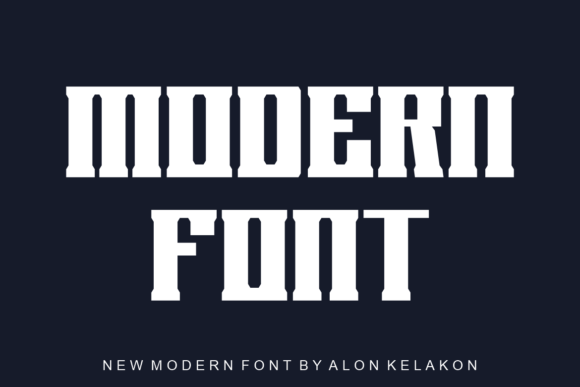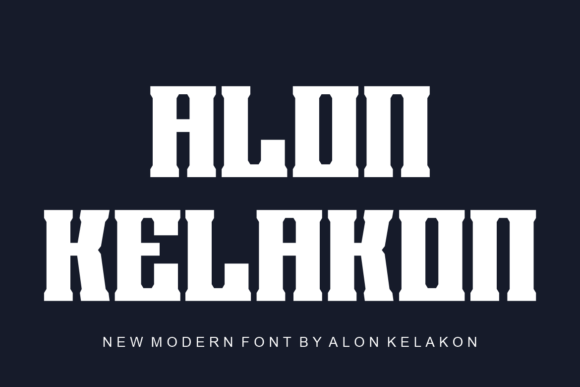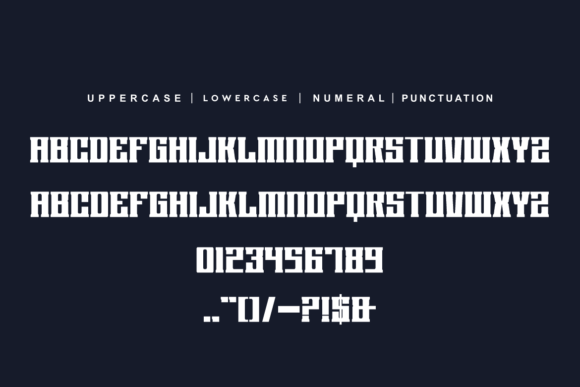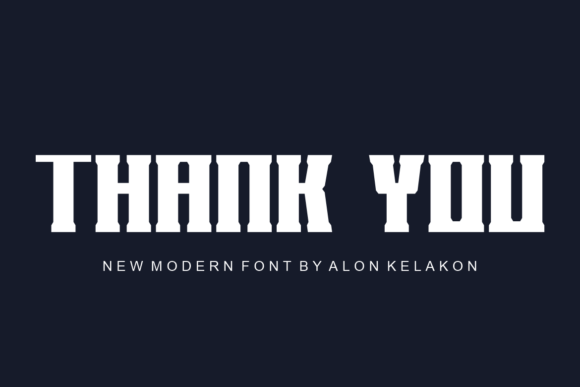
Introduction to Sigared Font
As a designer, have you ever found yourself staring at a blank canvas, desperate for the perfect font to bring your creative project to life? The frustration is real, but the solution is often just a click away. That’s where the Sigared Font comes in – a game-changing serif display font that’s about to revolutionize the way you design.
With its bold and cool aesthetic, Sigared Font is the ultimate design resource for any creative project. Whether you’re working on a logo, a brochure, or a social media campaign, this high-quality font is sure to elevate your work to the next level. And the best part? It’s available for a free download, complete with a transparent background that makes it easy to integrate into any design.
Key Features of Sigared Font
- High-quality design resource with a transparent background, ideal for creative projects.
- Unique characteristics include a modern, sleek design and a versatile style that adapts well to various creative projects.
- Designed to be highly legible, making it perfect for body text, headings, and titles in your design work.
Honest Review: Sigared Font
As a designer, I’m always on the lookout for high-quality fonts to elevate my creative projects. The Sigared Font has caught my attention, and I’d like to share my thoughts on this design resource.
- Unique and stylish design: The Sigared Font has a distinctive look that can add a touch of sophistication to any project.
- Limited character set: While the font is stylish, its character set is relatively small, which might limit its use in certain projects.
- Not ideal for body text: The font’s unique design makes it better suited for headlines and titles, rather than body text.
Overall, I think the Sigared Font is a great addition to any designer’s toolkit. While it has some limitations, its unique design and free download make it a valuable design resource. With some creative problem-solving, I can see this font being used in a variety of creative projects.
Sigared Font is perfect for creating invitations, business cards, and other marketing materials. Its transparent background makes it easy to use with background images or videos.
Experiment with different font sizes, colors, and styles to create a unique look. You can also use Sigared Font in combination with other design elements to create a cohesive design.